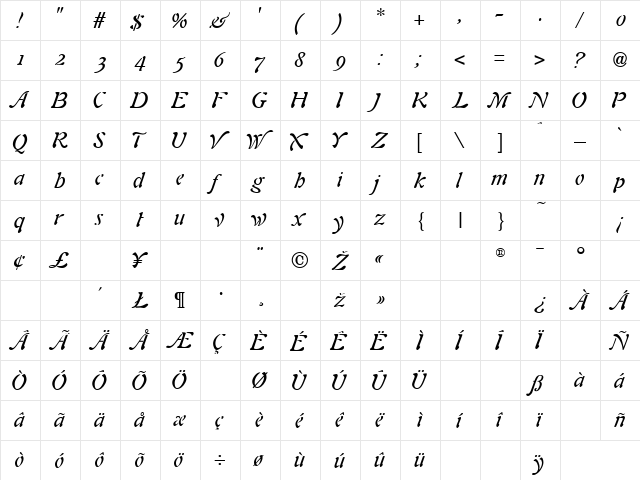
Alouette Italic Normal
Design Context for Alouette Italic Typeface
Alouette Italic takes a measured approach to typography — its balanced proportions and neutral character make it a reliable workhorse for both digital and print work. The slanted form adds forward momentum and visual energy.
Pro Tip: Try Alouette Italic for annotation and caption copy alongside an upright companion — the contrast in angle creates a dynamic but ordered typographic system.